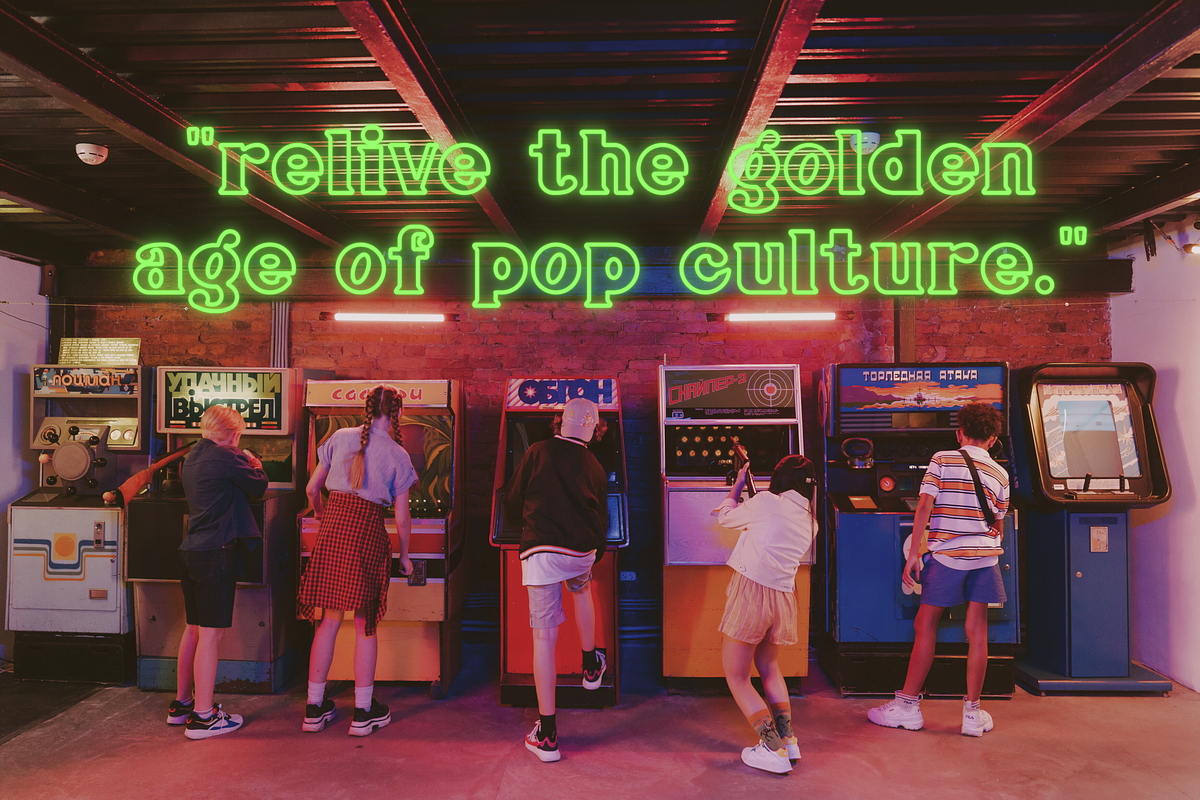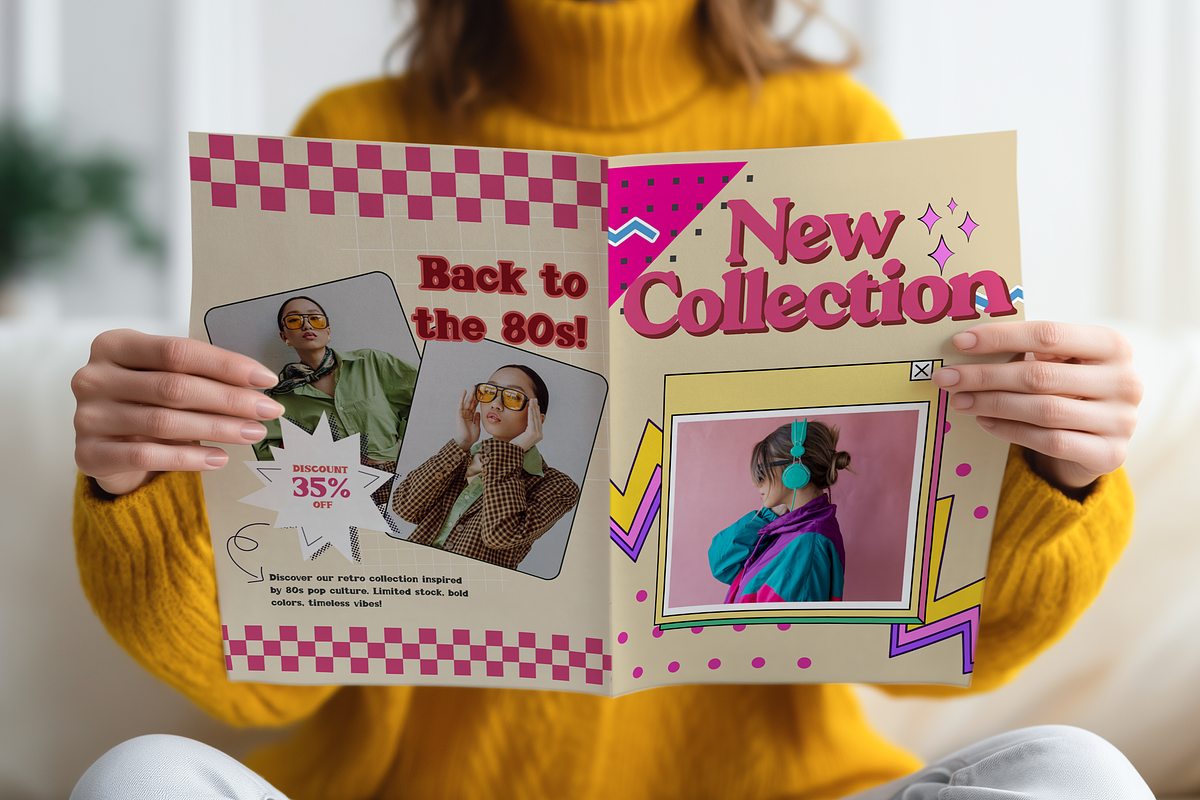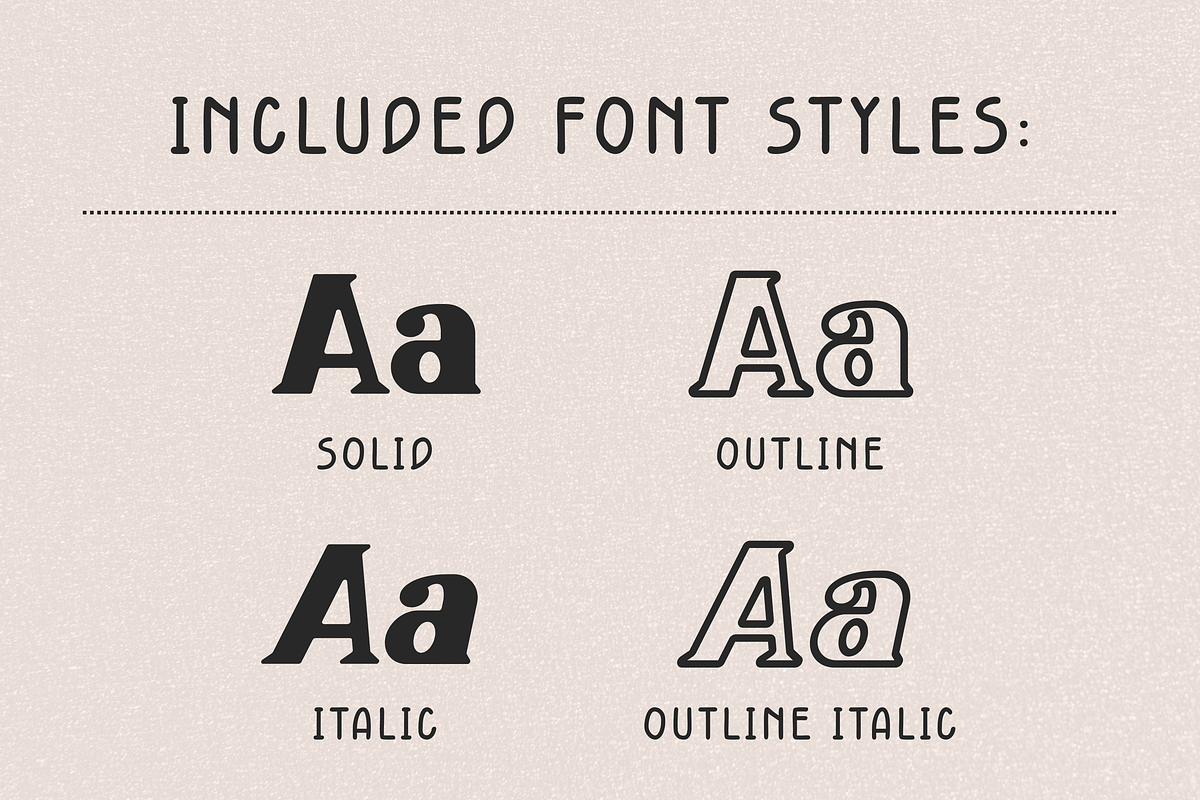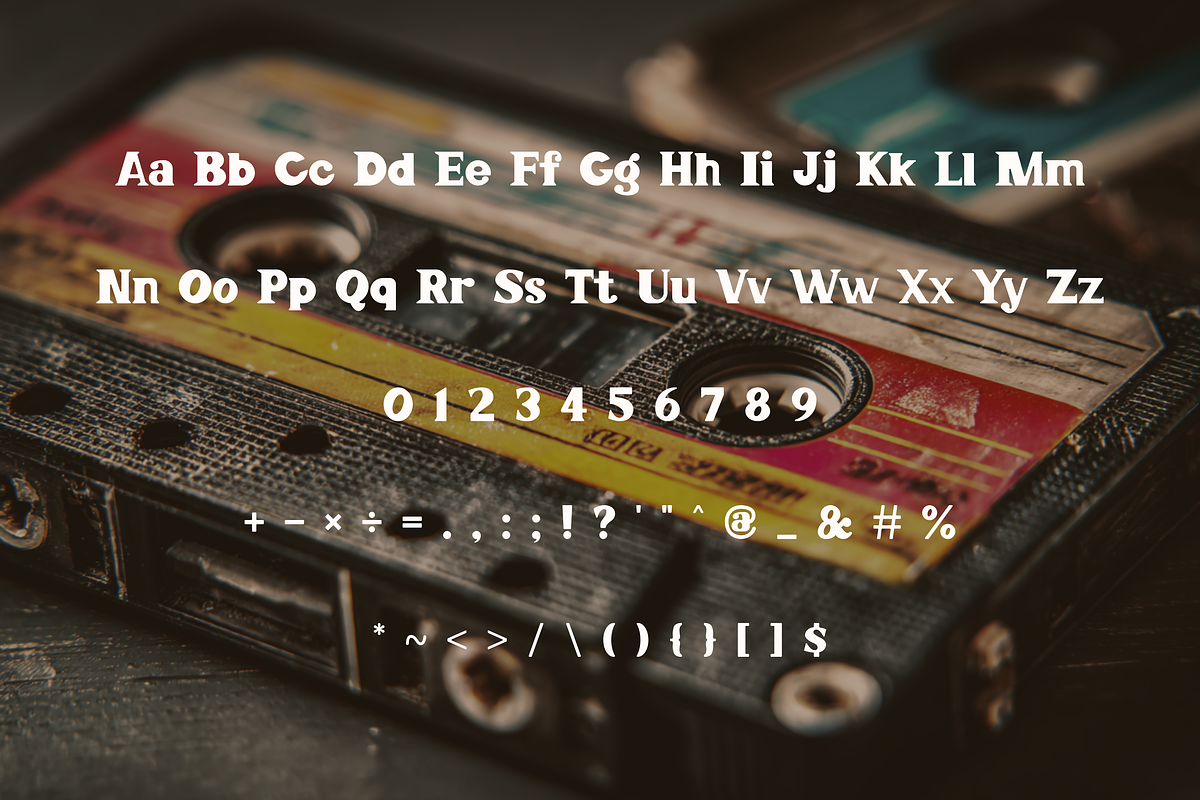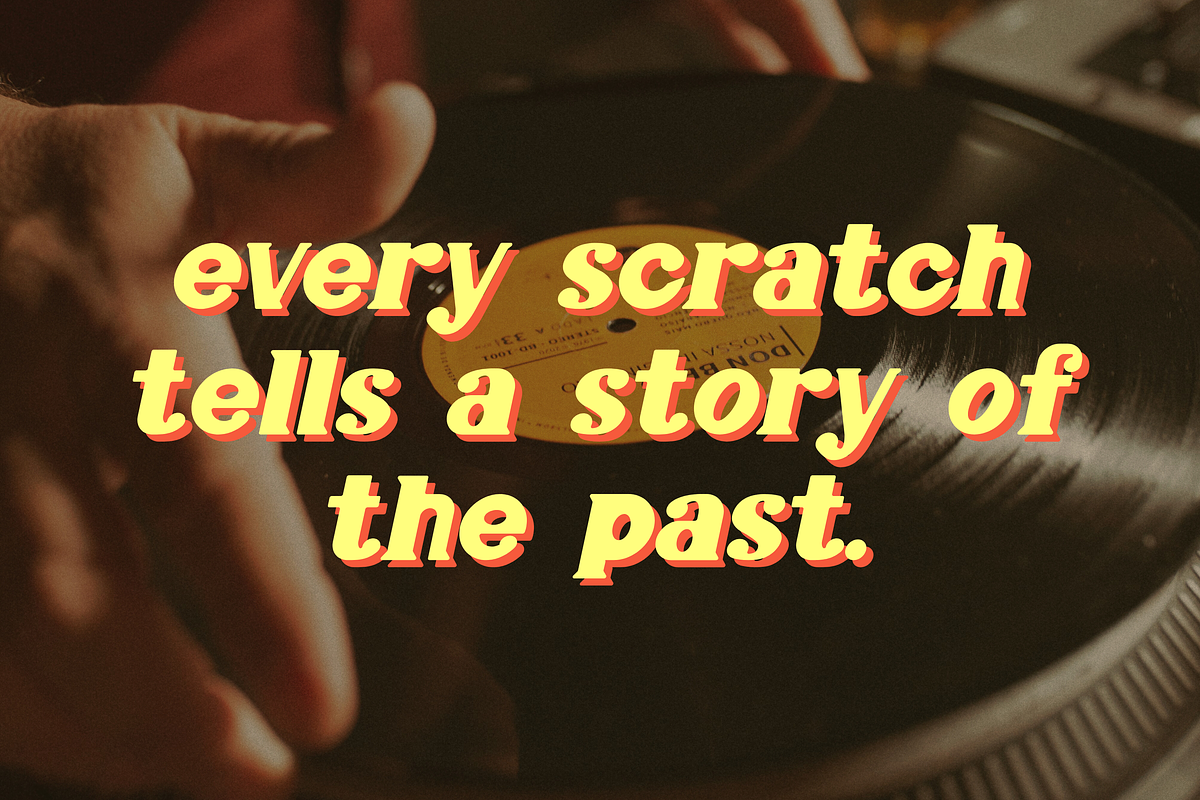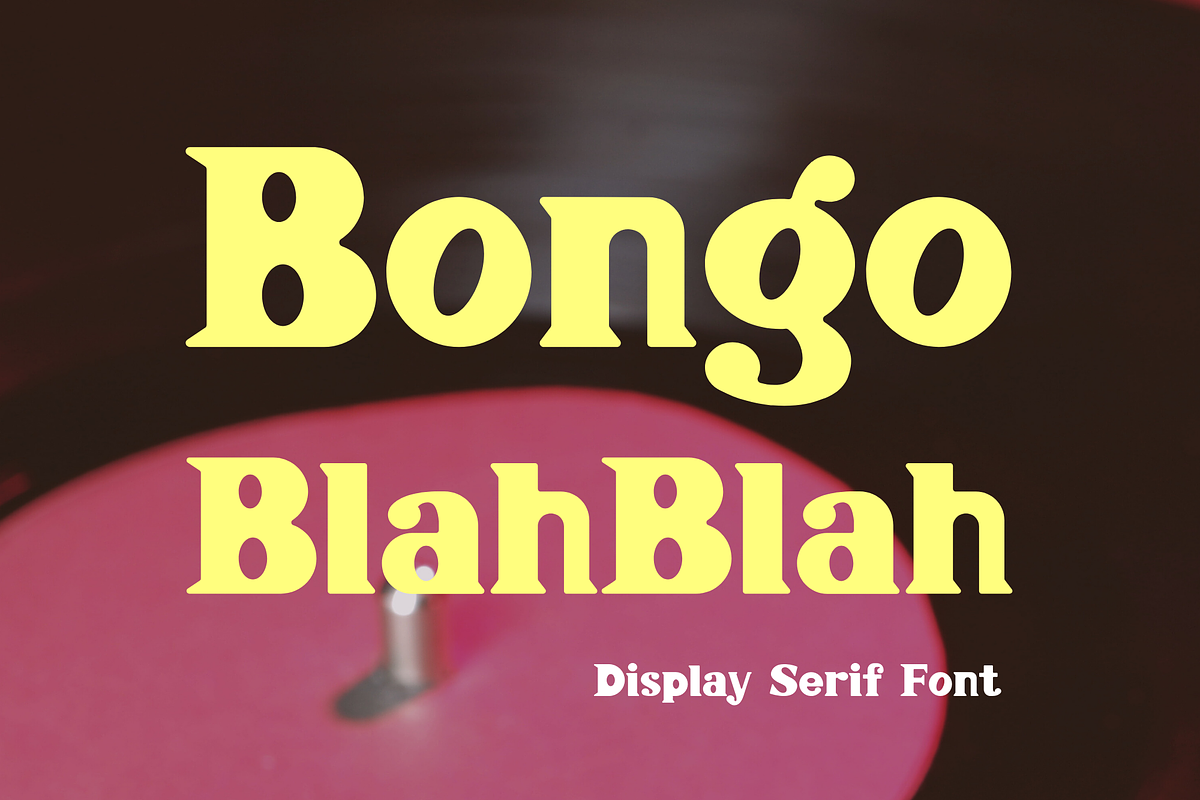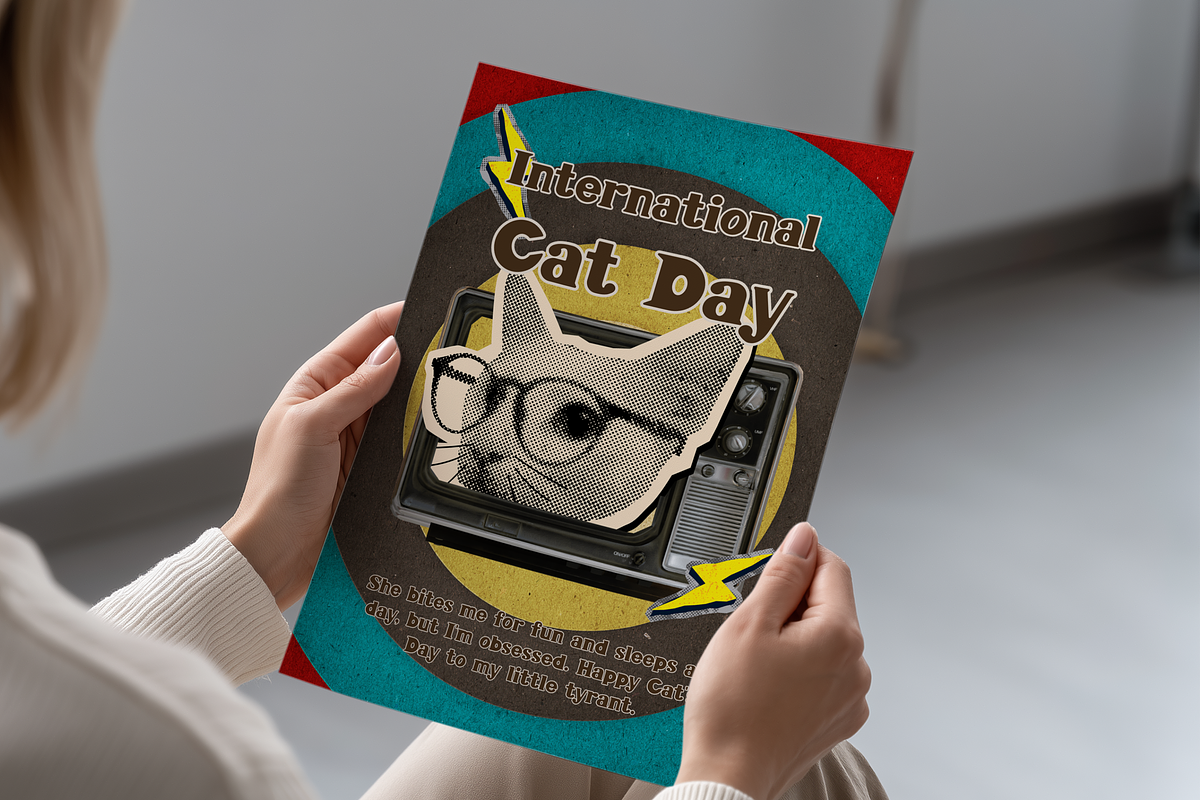
Retro Display Font - Bongo BlahBlah
🎶 Bongo Blahblah – Retro Display Serif Font
Bring bold vintage vibes to your designs with Bongo Blahblah, a retro-inspired serif font perfect for eye-catching headlines, branding, and nostalgic visuals. Inspired by vinyl records and cassette-era aesthetics, this font delivers a groovy, timeless feel with modern usability.